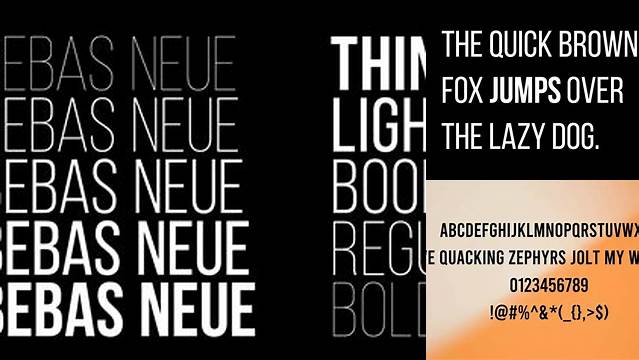
Are you looking to add a touch of modern flair to your designs? Look no further than the Bebas Bold font family. This incredibly popular and versatile font is a fantastic choice for a wide range of projects, from headlines and logos to posters and website designs. And the best part? You can download it for free! In this article, we'll dive deep into everything you need to know about the Bebas Bold font family, including its history, characteristics, where to download it, and how to effectively use it in your designs. So, guys, let's get started and explore the world of Bebas Bold!
What is Bebas Bold Font Family?
Bebas Bold is a sans-serif font known for its clean lines, tall and narrow characters, and modern aesthetic. It's often described as a condensed typeface, meaning the letters are narrower than usual, allowing you to fit more text into a limited space. This makes it an excellent choice for headlines, posters, and other designs where space is at a premium. The Bebas Bold font family was originally designed by Ryoichi Tsunekawa, a Japanese designer, and released through the Dharma Type foundry. Since its release, it has gained immense popularity among designers worldwide due to its versatility and availability as a free font. Its sharp, geometric forms and strong visual presence make it ideal for creating eye-catching designs that demand attention. Bebas Bold’s popularity stems from its ability to convey a sense of strength and modernity, making it suitable for a wide range of applications, from corporate branding to creative projects. The font's clean and uncluttered design ensures legibility even at smaller sizes, while its bold weight adds a powerful emphasis to any text. This balance of readability and visual impact is what makes Bebas Bold a favorite among designers looking to make a statement.
A Brief History of Bebas Bold
The history of Bebas Bold is quite interesting. It was initially released as a single weight font, Bebas Neue, and quickly gained traction within the design community. Due to its popularity, additional weights and styles were later added to form the Bebas Neue font family. This expansion included thinner weights for body text and, of course, the bold weight we're focusing on today. The original Bebas Neue was designed with the intention of providing a modern, clean, and impactful typeface that was also freely available for use. This open-source approach contributed significantly to its widespread adoption. Designers appreciated the font's versatility and its ability to convey a contemporary feel, making it a go-to choice for various projects. As the font's popularity grew, the need for additional weights became apparent. This led to the development of a full family of Bebas Neue fonts, including the Bold variant, which further enhanced its utility in different design contexts. The bold weight, in particular, provided designers with a powerful tool for creating strong, attention-grabbing headlines and emphasizing key messages within their layouts. The evolution of Bebas Bold from a single weight font to a complete family is a testament to its enduring appeal and the design community's need for versatile and accessible typefaces.
Key Characteristics of the Bebas Bold Font
When you look at Bebas Bold, you'll immediately notice its distinct characteristics. The tall and narrow letterforms give it a unique, condensed appearance. This allows you to fit more text into a smaller space, which is especially useful in headlines and titles. The clean, sans-serif design ensures readability and a modern feel. There are no decorative serifs (the small strokes at the ends of letters) to distract the eye, making it a very straightforward and impactful font. Another key feature of Bebas Bold is its strong, bold weight. This gives the text a powerful presence, making it stand out and grab attention. It's perfect for making a statement and conveying a sense of authority. The uniform stroke width throughout the letters contributes to its clean and consistent appearance. This consistency makes it easy to read and visually appealing. Bebas Bold also has a relatively large x-height, which is the height of the lowercase letters. This further enhances its legibility, especially at smaller sizes. The combination of these characteristics – condensed form, clean design, bold weight, uniform strokes, and large x-height – makes Bebas Bold a highly effective typeface for a variety of design applications. Its modern and impactful look is perfect for creating designs that are both visually appealing and easy to read.
How to Use Bebas Bold Effectively in Your Designs
Alright, you've got Bebas Bold downloaded, installed, and you're ready to rock your designs! But how do you actually use it effectively? Bebas Bold is a powerful font, but like any tool, it needs to be used with care and intention. One of the best ways to use Bebas Bold is for headlines and titles. Its bold weight and condensed form make it perfect for grabbing attention and making a strong statement. Think about using it for website headers, poster titles, or even in presentations. However, because it's so bold and condensed, it's generally not the best choice for large blocks of body text. It can become tiring to read if used extensively. Instead, consider pairing Bebas Bold with a more legible sans-serif or serif font for your body text. A good contrast in fonts can make your design more visually appealing and easier to read. When using Bebas Bold, pay attention to letter spacing and kerning. The condensed nature of the font means that the letters can sometimes feel a bit cramped. Adjusting the letter spacing can improve readability and give the text a more polished look. Think about the overall tone and style of your design. Bebas Bold has a modern and somewhat assertive feel, so it works well in designs that need to convey strength, confidence, or a contemporary vibe. It might not be the best choice for designs that need to feel soft, elegant, or traditional. Experiment with different sizes and weights. While Bebas Bold is known for its bold weight, the Bebas Neue family includes other weights that you can use to create visual hierarchy and add variety to your designs. Don't be afraid to play around and see what works best for your project. By keeping these tips in mind, you can harness the power of Bebas Bold to create stunning and effective designs.
Pairing Bebas Bold with Other Fonts
Font pairing is an art, guys, and choosing the right font to go with Bebas Bold can make or break your design. Since Bebas Bold is a strong and impactful font, you'll want to pair it with something that complements it without overpowering it. A classic approach is to pair a sans-serif like Bebas Bold with a serif font for the body text. This creates a nice contrast and improves readability. Think about fonts like Open Sans, Roboto, or Lato as excellent sans-serif options. These fonts are clean and legible, making them a great choice for body text while allowing Bebas Bold to shine in headlines. If you're looking for a serif option, consider fonts like Merriweather, Playfair Display, or Lora. These serif fonts have a more traditional feel, which can create a sophisticated contrast with the modern Bebas Bold. When pairing fonts, pay attention to the overall tone and style you're trying to achieve. If you want a clean and minimalist look, stick with simpler sans-serif fonts for both headlines and body text. For a more dynamic and visually interesting design, try pairing Bebas Bold with a script or handwritten font for subheadings or accents. Just be careful not to overdo it – too many different fonts can make your design look cluttered and confusing. Another tip is to consider the weight and size of your fonts. If you're using Bebas Bold for headlines, use a smaller and lighter font for the body text. This creates a visual hierarchy and guides the reader's eye through the design. Experiment with different combinations and see what works best for your project. There are no hard and fast rules when it comes to font pairing, so trust your eye and have fun with it! By carefully selecting a complementary font, you can elevate your designs and make them even more visually appealing.
Best Uses for Bebas Bold Font
Let's get down to brass tacks: where does Bebas Bold really shine? This font is a workhorse, but like any tool, it has its sweet spots. Bebas Bold is fantastic for headlines and titles, no doubt about it. Its strong, bold weight and condensed form make it perfect for grabbing attention and making a statement. Think about using it for website headers, posters, flyers, and even social media graphics. If you need to make an impact, Bebas Bold is your go-to. Another great use for Bebas Bold is in branding and logos. Its modern and assertive feel can help your brand stand out and convey a sense of confidence. It's particularly well-suited for brands that want to project a strong, contemporary image. Consider using Bebas Bold for your logo, website, and marketing materials to create a cohesive and impactful brand identity. In the realm of print design, Bebas Bold is a winner. Its clean lines and legibility make it ideal for posters, brochures, and magazine layouts. You can use it for headings, subheadings, and even captions to add visual interest and create a clear hierarchy of information. For web design, Bebas Bold can be a valuable asset, especially when used sparingly. It's great for website headers, navigation menus, and call-to-action buttons. However, remember that its condensed form can be a bit challenging to read in large blocks of text, so stick to using it for shorter elements. Bebas Bold also works well in infographics and presentations. Its bold weight helps key information stand out, making your data and insights more engaging and memorable. Use it for titles, labels, and callouts to guide your audience's attention and create a visually appealing presentation. In summary, Bebas Bold is a versatile font that excels in situations where you need to make a strong visual statement. By understanding its strengths and limitations, you can use it effectively to create impactful designs that capture attention and convey your message with clarity.
So, there you have it, guys! A comprehensive guide to the Bebas Bold font family. We've covered everything from its history and characteristics to where to download it for free and how to use it effectively in your designs. Bebas Bold is a fantastic font that can add a touch of modern flair to any project. Its clean lines, bold weight, and condensed form make it a powerful choice for headlines, titles, branding, and more. Remember, the key to using Bebas Bold effectively is to pair it with complementary fonts, pay attention to letter spacing, and consider the overall tone and style of your design. Don't be afraid to experiment and try different combinations to find what works best for your project. And most importantly, always check the font license to ensure you're using it legally and ethically. With its versatility and availability as a free font, Bebas Bold is a valuable addition to any designer's toolkit. So, go ahead and download it, start experimenting, and unleash your creativity! Whether you're designing a website, a poster, a logo, or anything in between, Bebas Bold can help you create stunning and impactful visuals that grab attention and convey your message with clarity and style. Now, go out there and make some awesome designs with Bebas Bold!